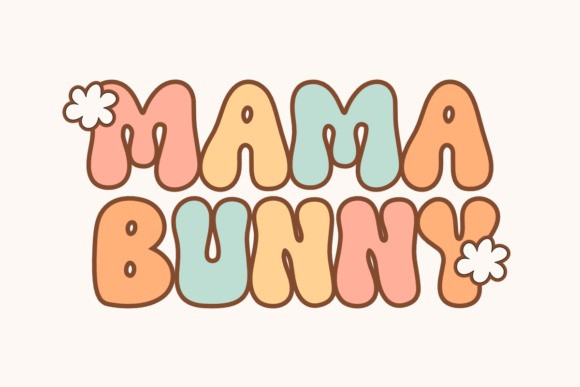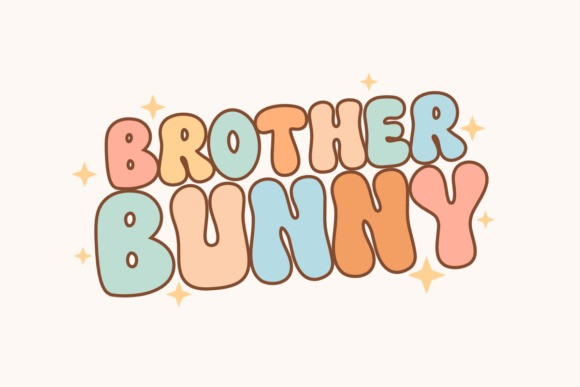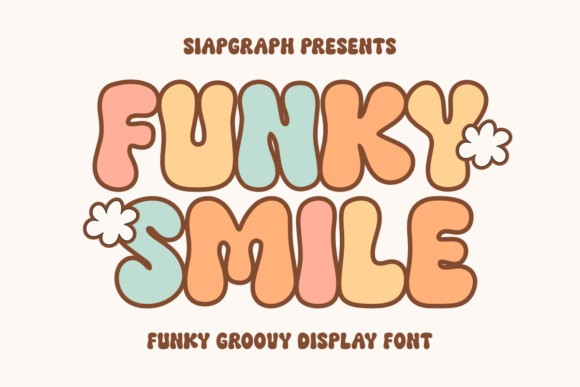
Funky Smile Font
Funky Smile Font is a playful and groovy display font that radiates fun, joy, and retro vibes. With its bubbly, rounded letters and nostalgic 70s-inspired style, this typeface is perfect for branding, posters, social media graphics, kids’ designs, and creative projects. Its thick, outlined shapes and funky aesthetic make every design pop with happiness and energy.